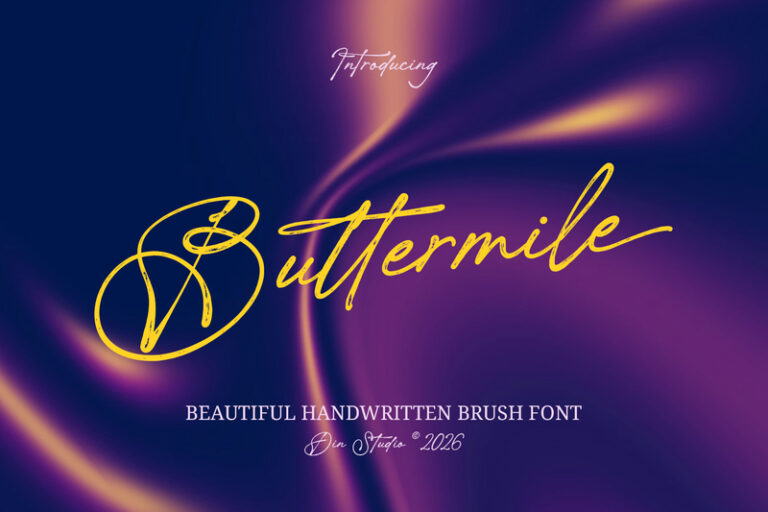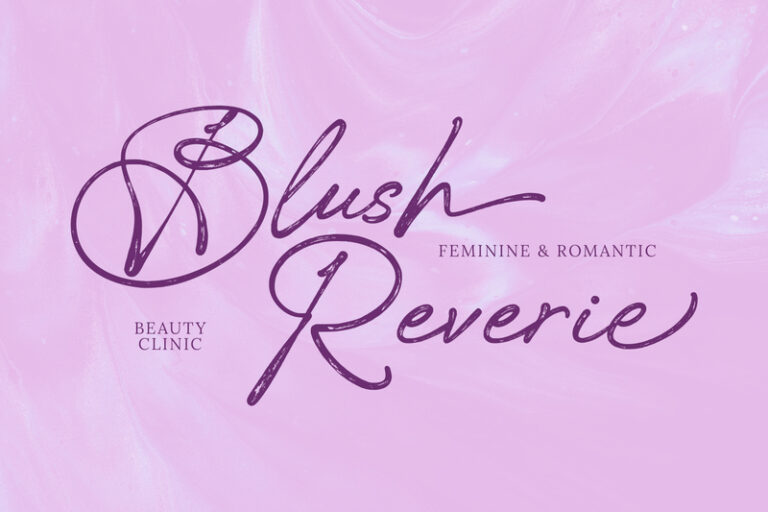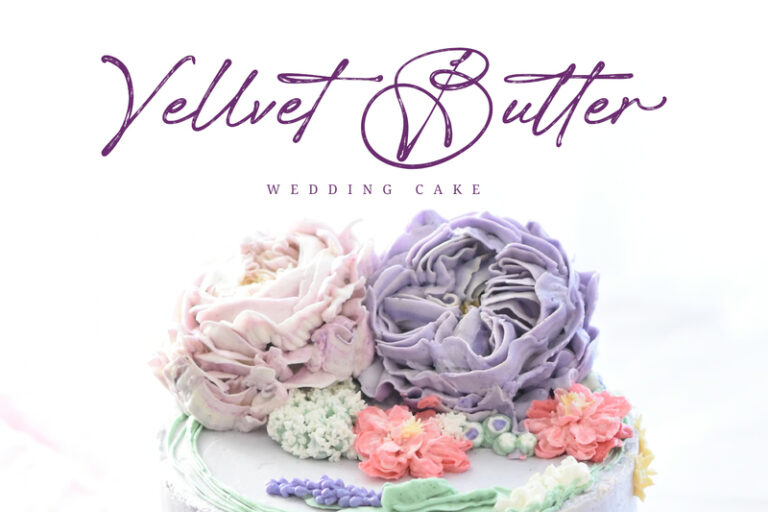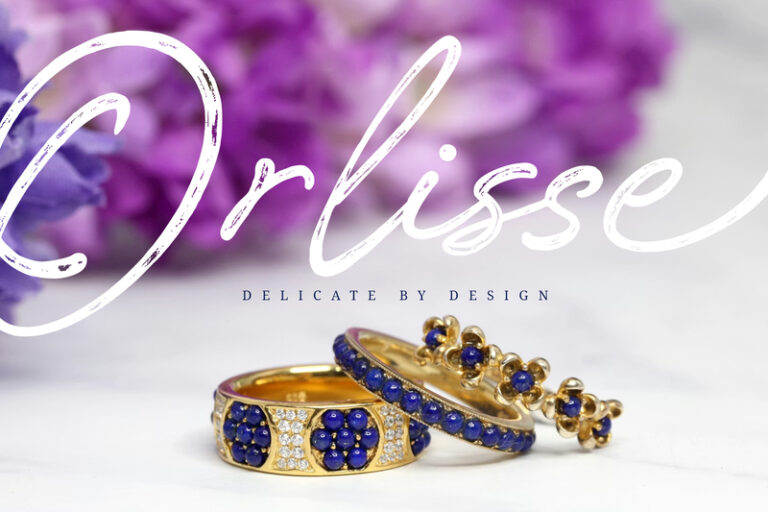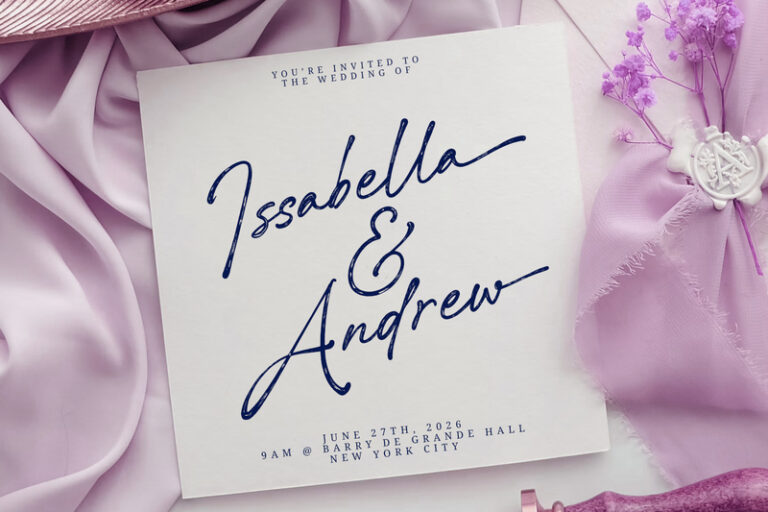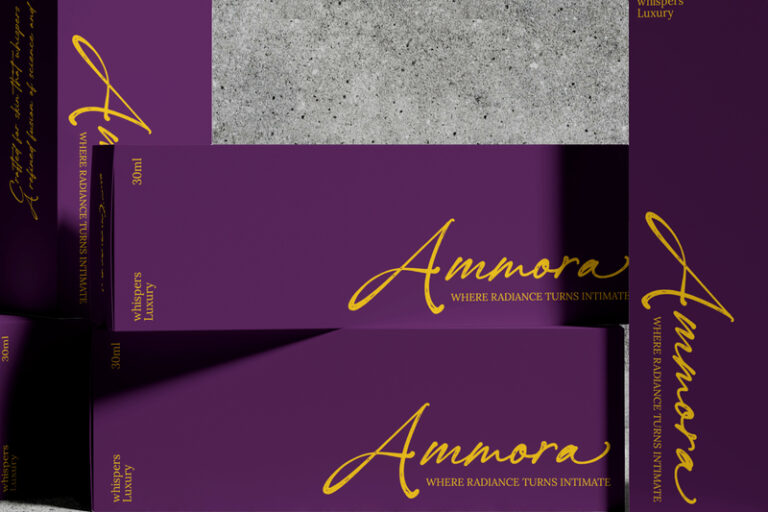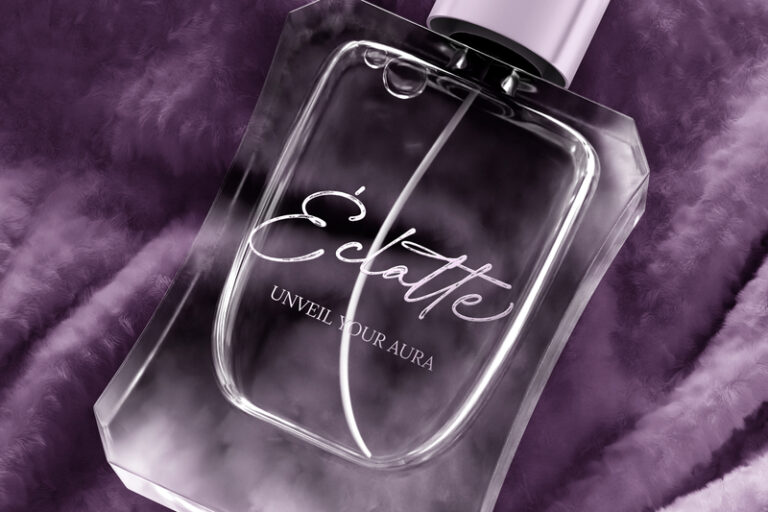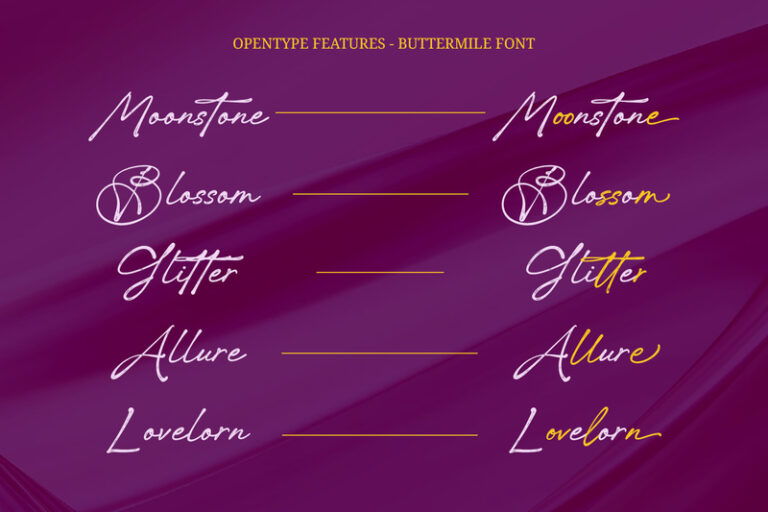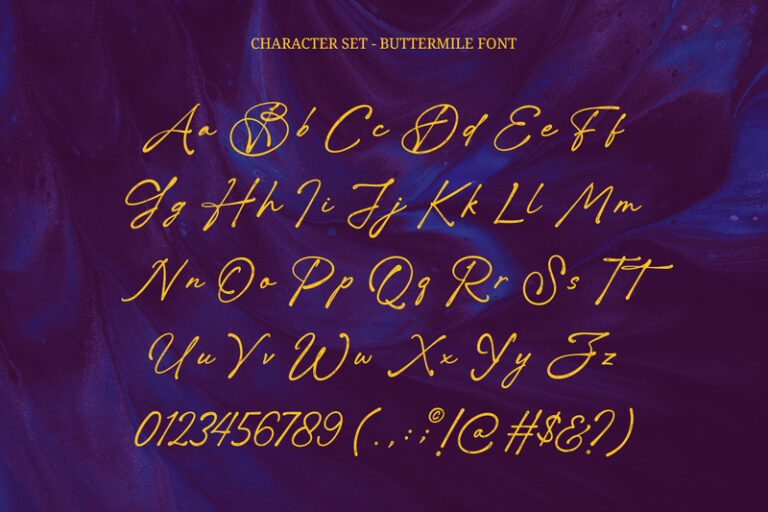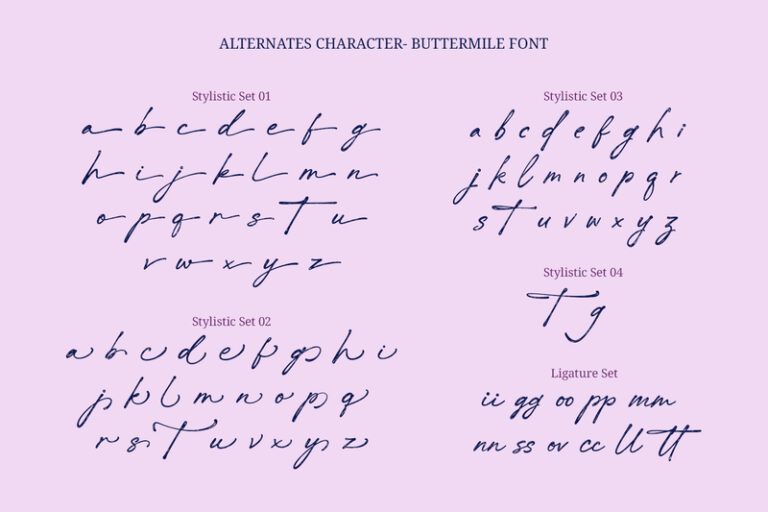
Buttermile – Handwritten Brush Font
Buttermile
Buttermile is a graceful handwritten font. Created with thin-weight strokes, smoothly connected letters, and low contrast, Buttermile captures the gentle rhythm of real cursive handwriting while maintaining a clean and modern aesthetic. Its delicate appearance makes it perfect for projects that need a refined, romantic, and personal touch. In addition, enjoy the features here.
- Ligatures
- Stylistic Sets
Buttermile fits in logos, invitations, quotes, branding, posters, and many more designs. Find out more ways to use this font by taking a look at the font preview.